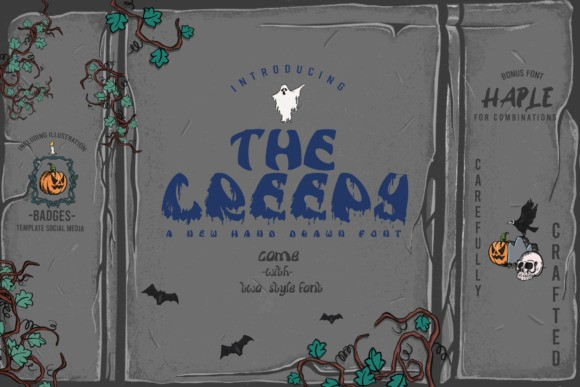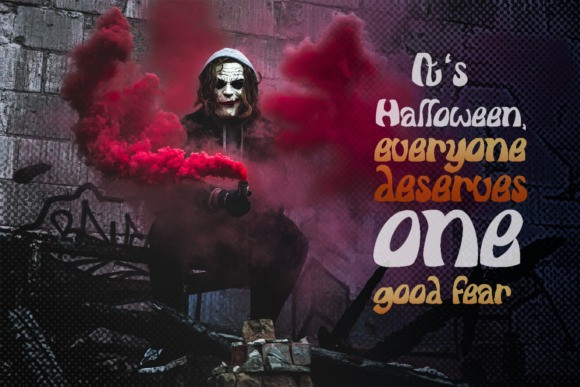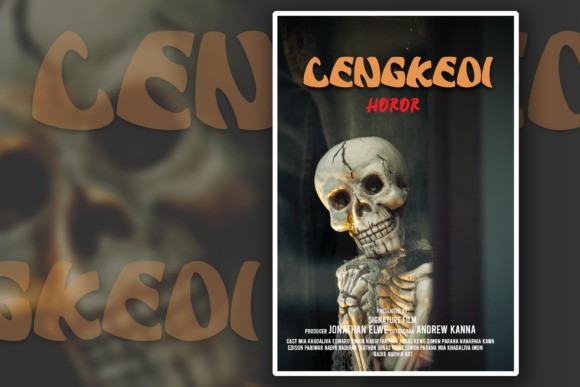
The Creepy Display Font
The Creepy is an incredibly fun and spooky display font. Ideal for any October party or Halloween design, this font will elevate any creative idea you have in mind.